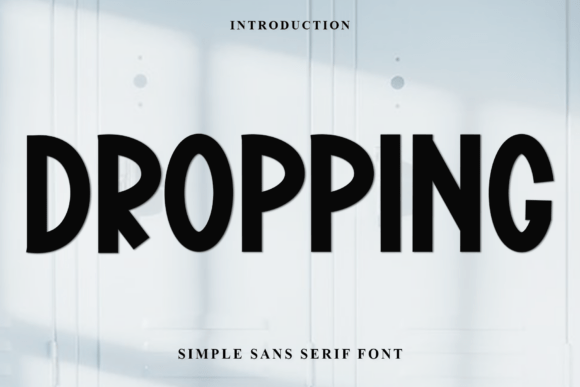
The Perfect Touch to Elevate Your Designs
Have you ever been working on a project and suddenly, everything just clicks? You find the perfect color palette, the perfect texture, and the perfect font. It’s as if the entire design is speaking to you, telling you that this is the moment you’ve been waiting for. For designers, this moment is what makes all the hard work worth it. And when you find the right font, it can make all the difference.
That’s where the Dropping Font comes in – a beautiful and eye-catching font designed with a soft, unique touch. Its distinctive strokes give it a special character, making it meaningful and versatile for future use. With various characters, it’s perfect for design projects, crafts, and other creative works.
Dropping Font Key Features
- Unique Characteristics: Dropping Font features a unique, hand-drawn design with a mix of geometric and organic elements, giving it a distinctive and eye-catching appearance.
Dropping Font Review
I recently had the chance to work with Dropping Font, a sans-serif font designed for a modern, trendy look. Here’s my honest review:
- Unique design aesthetic: Dropping Font brings a fresh, edgy vibe to your designs, perfect for fashion, lifestyle, or tech brands.
- High legibility: This font is easy to read, even at smaller sizes, making it suitable for body text or headings.
- Supports various languages: Dropping Font comes in a range of languages, making it a great choice for global brands.
- Limited font weights: Dropping Font only comes in a few weights, which may limit its use for more complex typography.
- Not ideal for formal or traditional designs: The font’s modern, trendy look may not be suitable for more conservative or classic designs.
Dropping Font is a solid choice for designers looking for a modern, trendy font. While it has its limitations, it’s perfect for brands that want to stand out and appeal to a younger audience. If you’re looking for a font that’s versatile and easy to use, Dropping Font is definitely worth considering.
Dropping font is commonly used in:
1. Title and headings to create a sense of depth and dimension.
2. Captions and quotes to add visual interest.
3. Branding and logos to create a unique and memorable look.